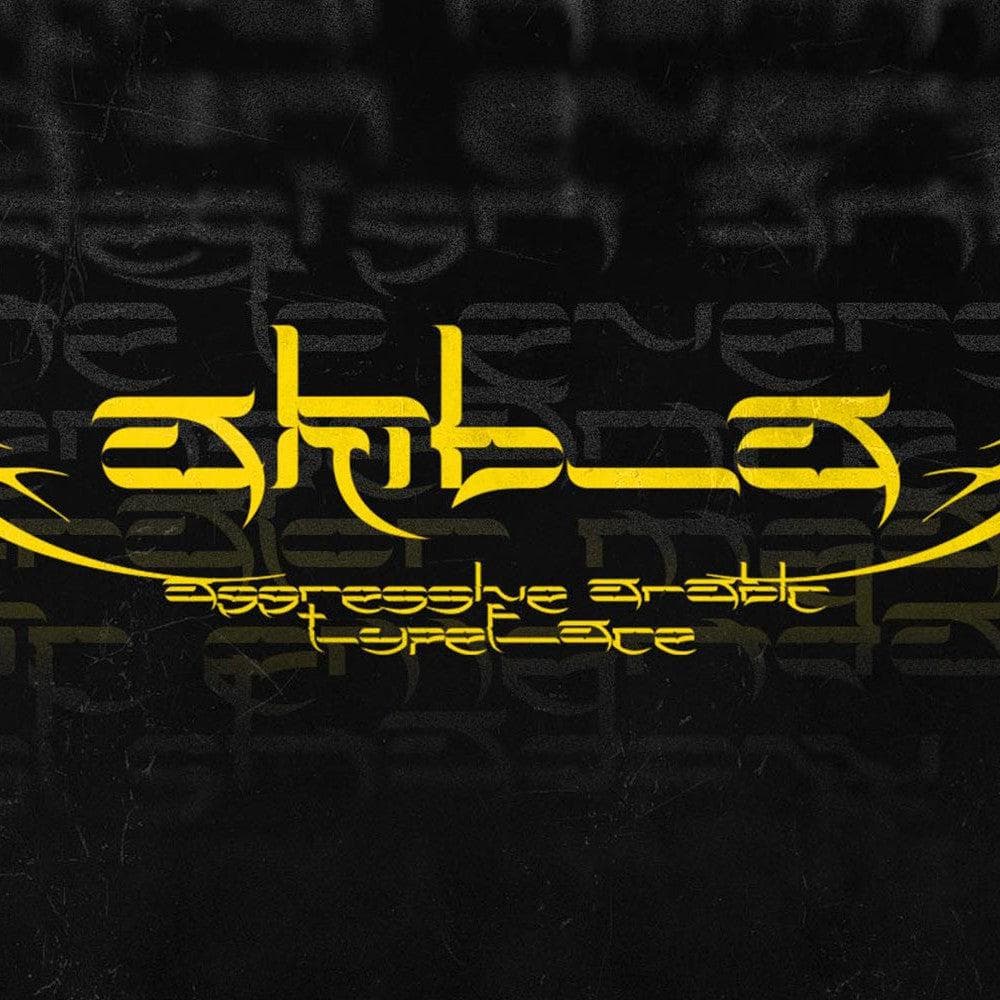
<p>The Akiba font is a meeting point between the classical horizontal style of the Arabic script and the sharpness of a modern, crisp and intriguing typeface. Developed for covering long spaces in posters, album artworks and clothing.<br>- Supplied in .otf format</p>